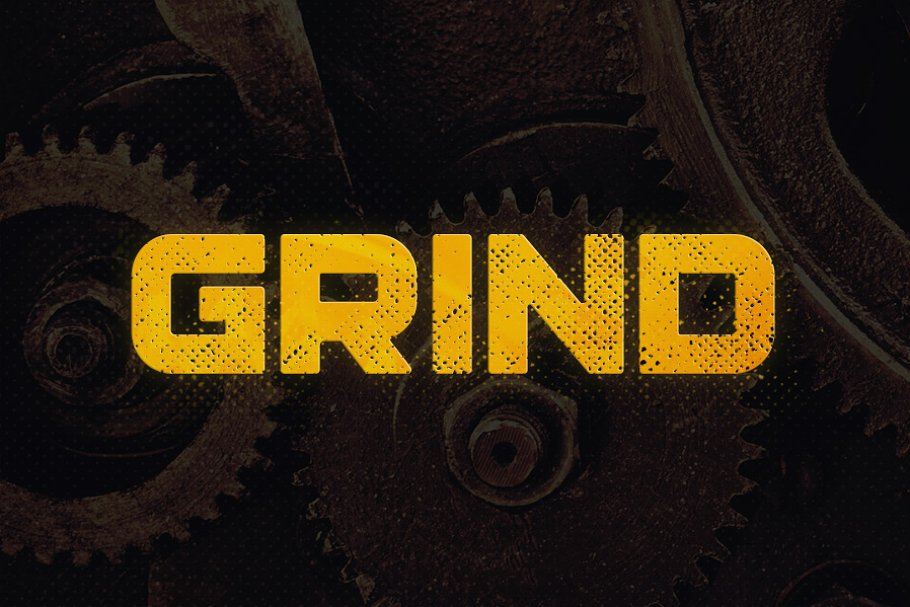
Looking for the perfect font to make your titles stand out? Look no further than Grind Typeface! Created by the talented Mehmet Tugcu, this font family is designed to be the Best Font For A Title.
Grind Typeface is a big and bold display font that exudes strength and toughness. With its simple yet powerful design, this font is perfect for making a statement and grabbing your audience's attention. Plus, with four unique styles to choose from - simple, demolished, halftone, and timber - you can find the perfect look to match your project's personality.
Not only is Grind Typeface visually impressive, but it also includes multilingual support, making it a great choice for designers working on projects for a global audience. And with letters, numbers, and punctuation included, you'll have everything you need to create stunning titles and headlines that truly stand out.